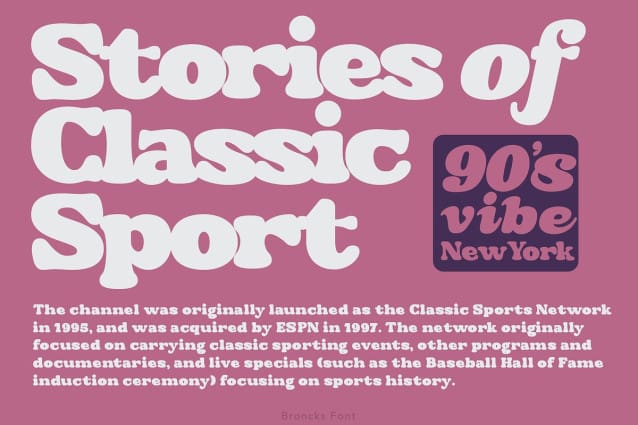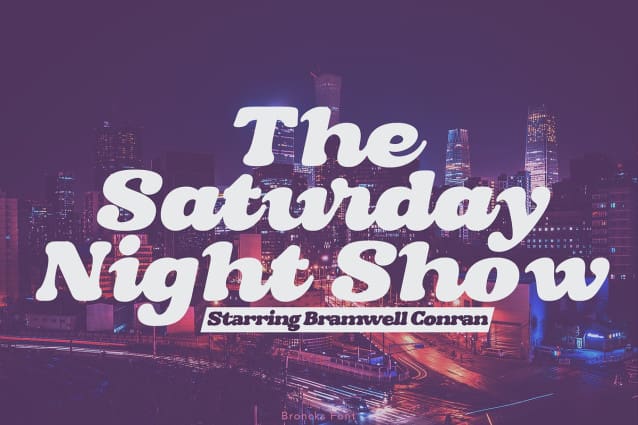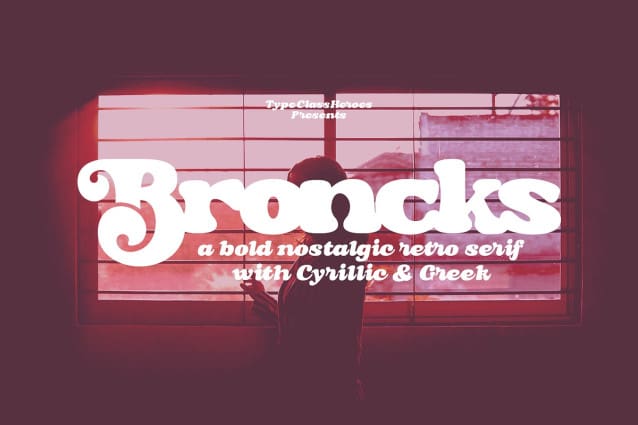
Broncks Retro Font
Broncks Retro Font, is a nostalgic retro font come with 80’s retro style serif and refined you can explore and combine creating rhythm for comfortable reading. This font supports more than 100 Latin-based languages and has extensive Cyrillic and Greek support for languages like Russian, Bulgarian, Ukrainian, and many more.